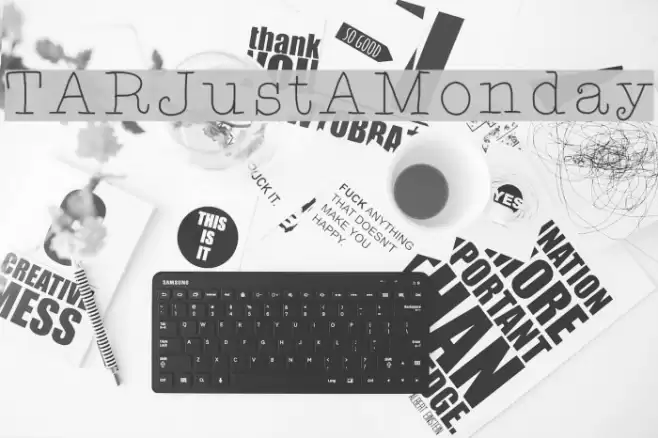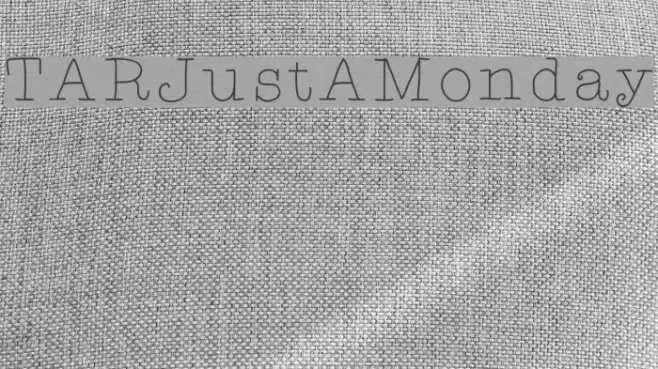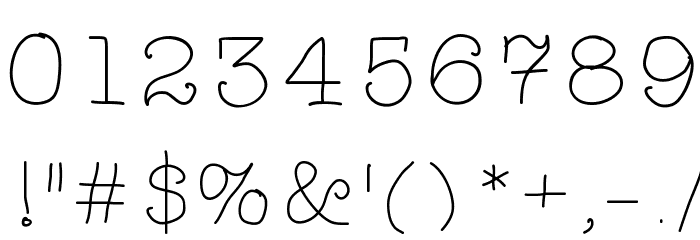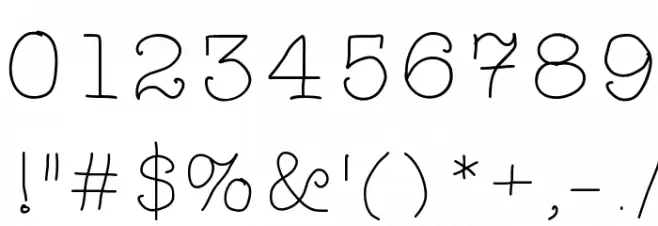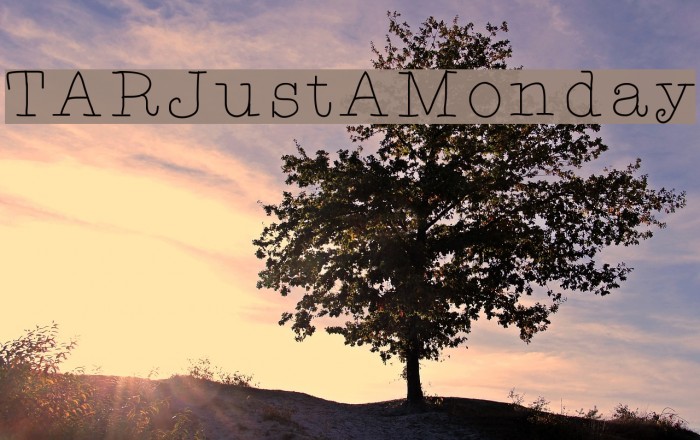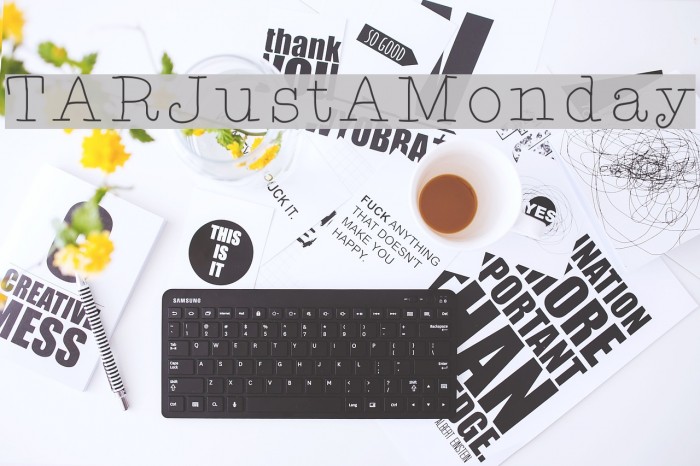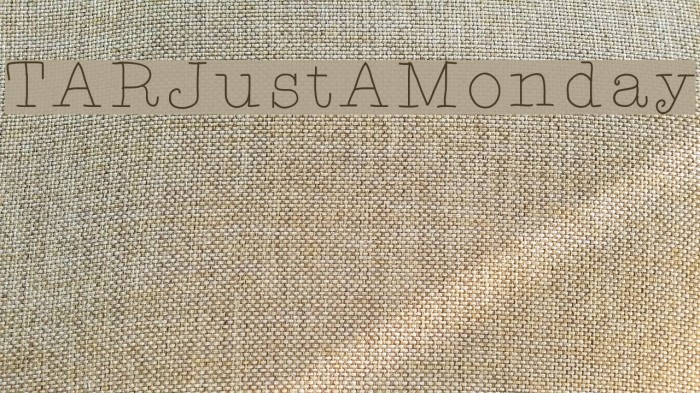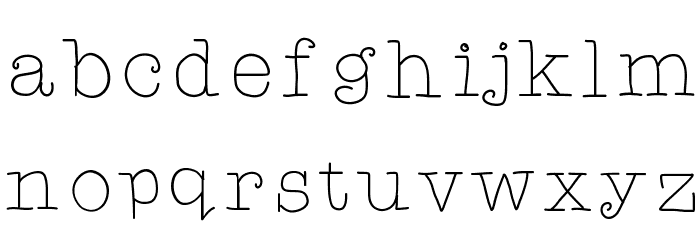
TARJustAMonday Font
TARJustAMonday Description
This font features a playful and whimsical design, characterized by its handwritten style with a slight slant. The letters have a consistent stroke width, giving it a monoline appearance. The characters are rounded and open, providing a friendly and approachable feel. The uppercase letters are slightly taller than the lowercase, maintaining a uniform height across the alphabet. The numerals and special characters follow the same playful style, ensuring coherence throughout the font. This font is versatile, suitable for both casual and creative projects.
A playful, handwritten-style font with a monoline appearance from Uncategorized fonts.
- Proposed Projects: Ideal for greeting cards, children's books, casual branding, and creative projects.
- Overall Style: Casual
- Use Case: Headlines, Logos, Creative projects